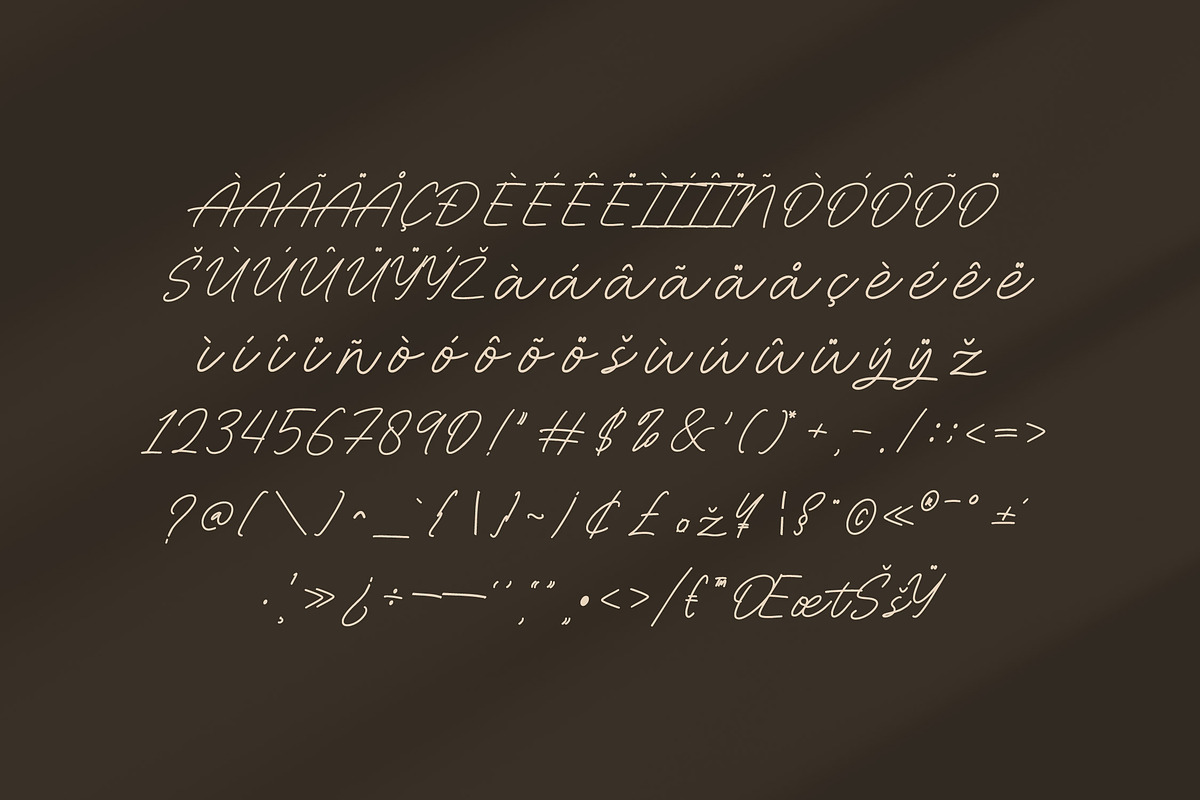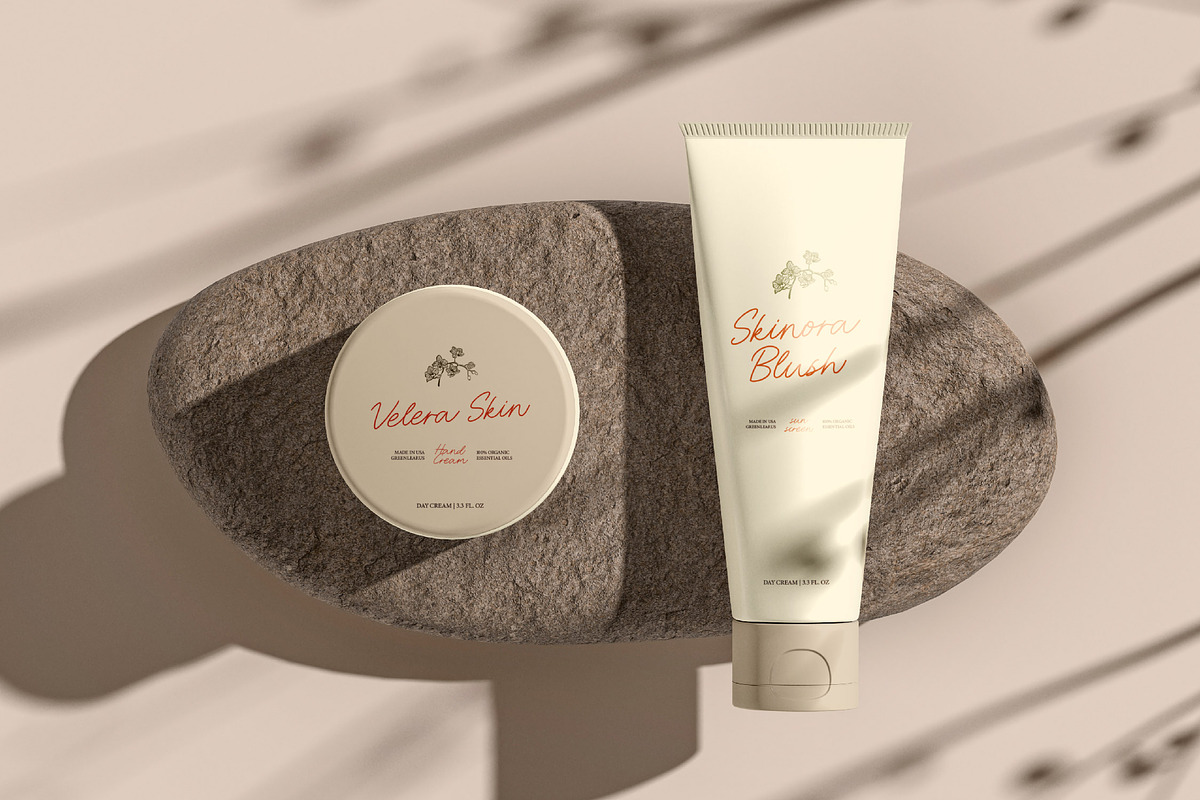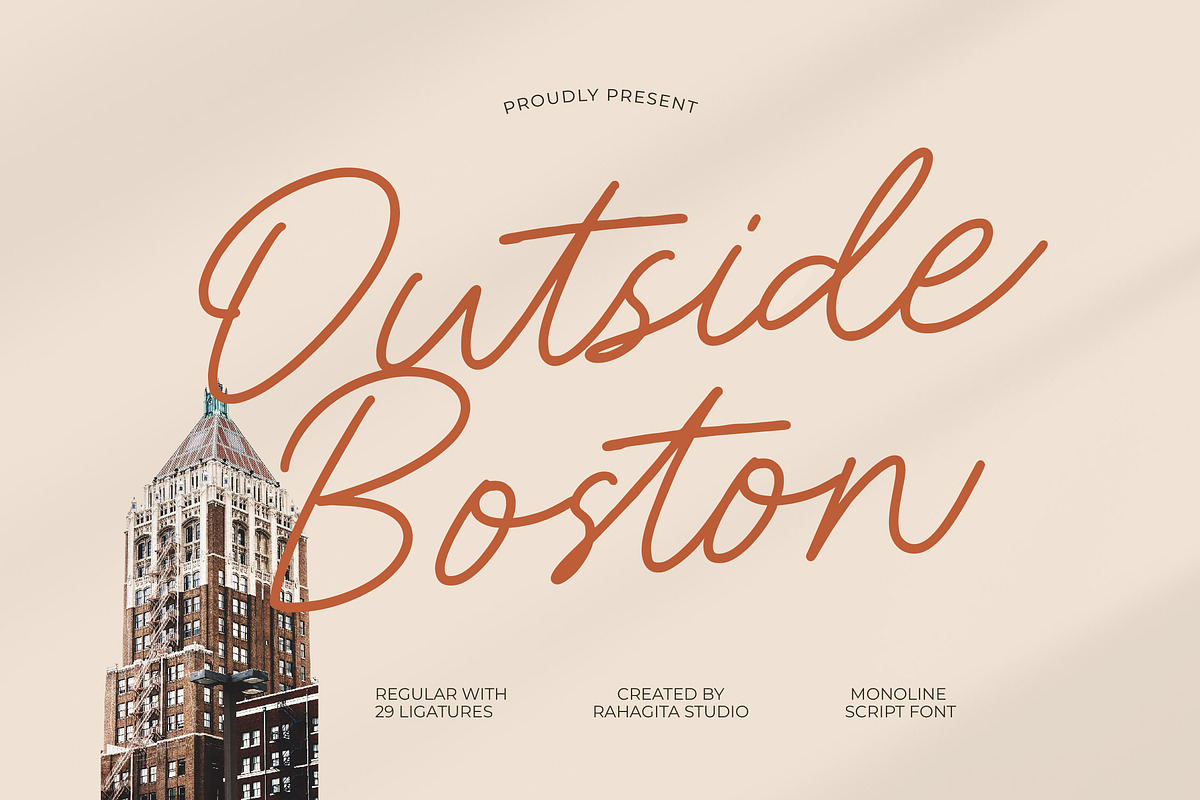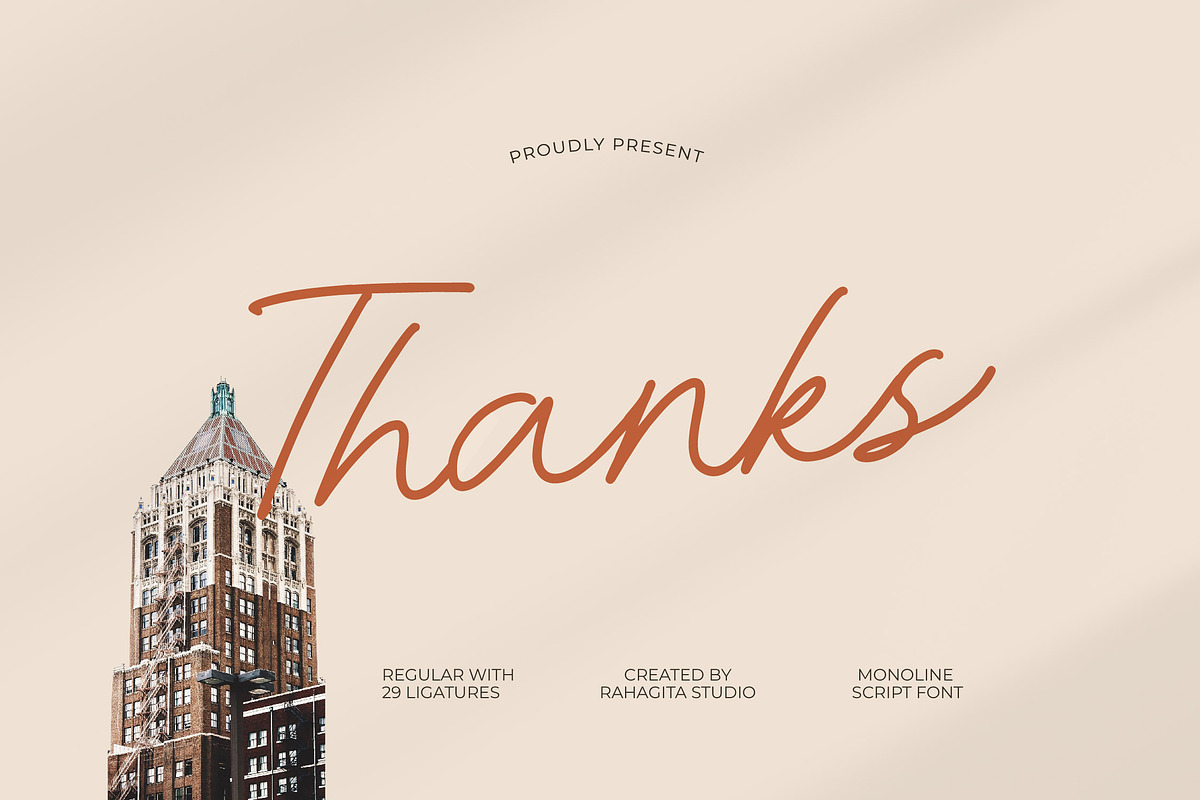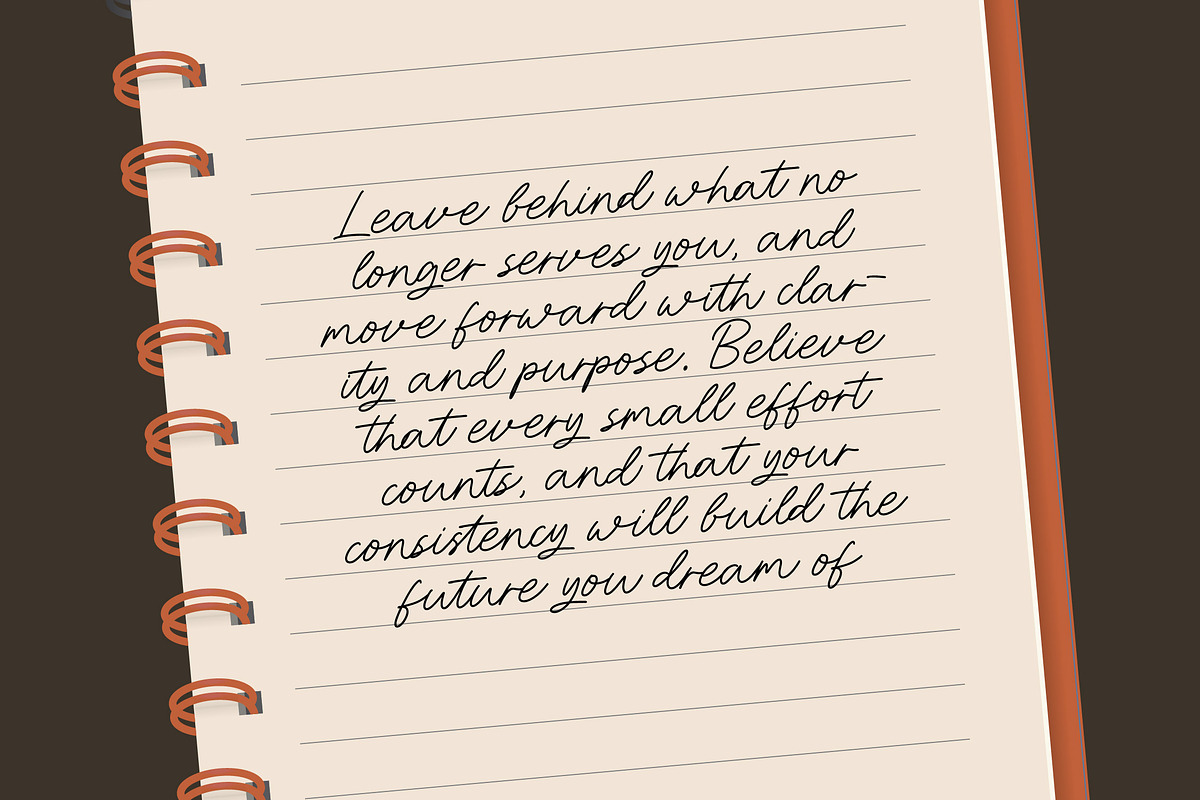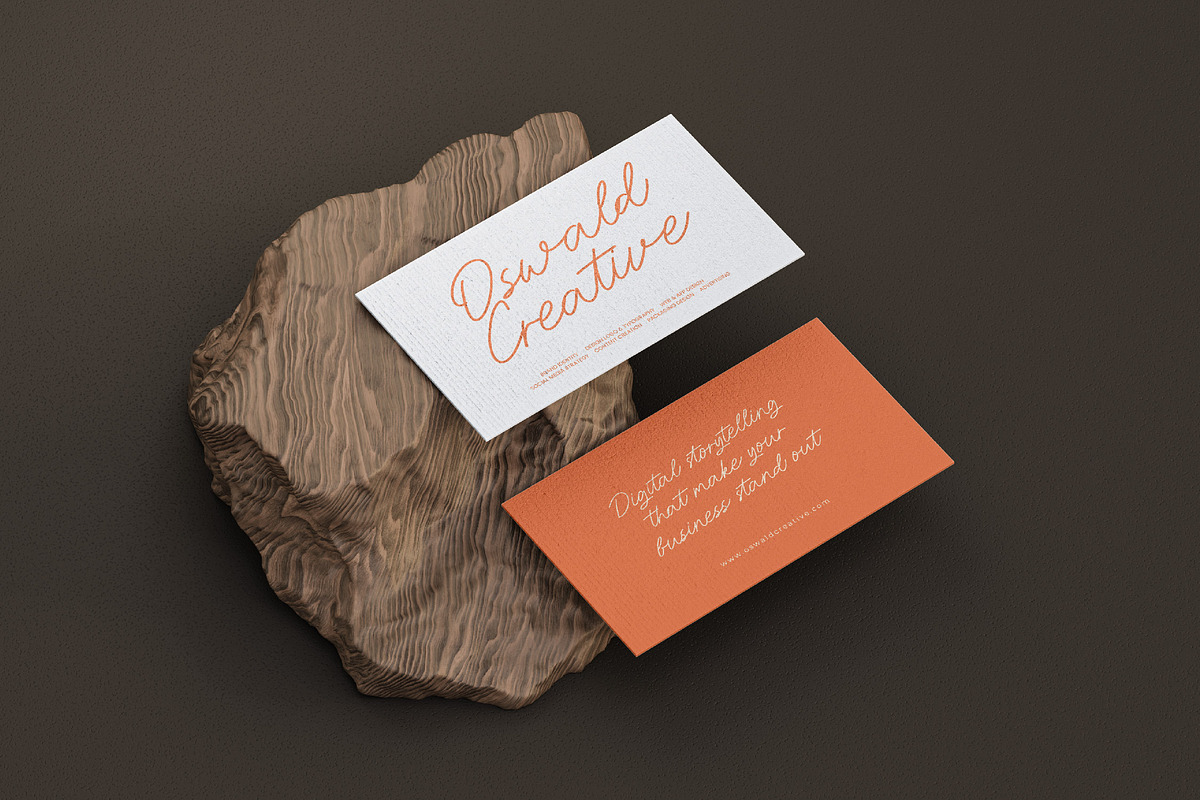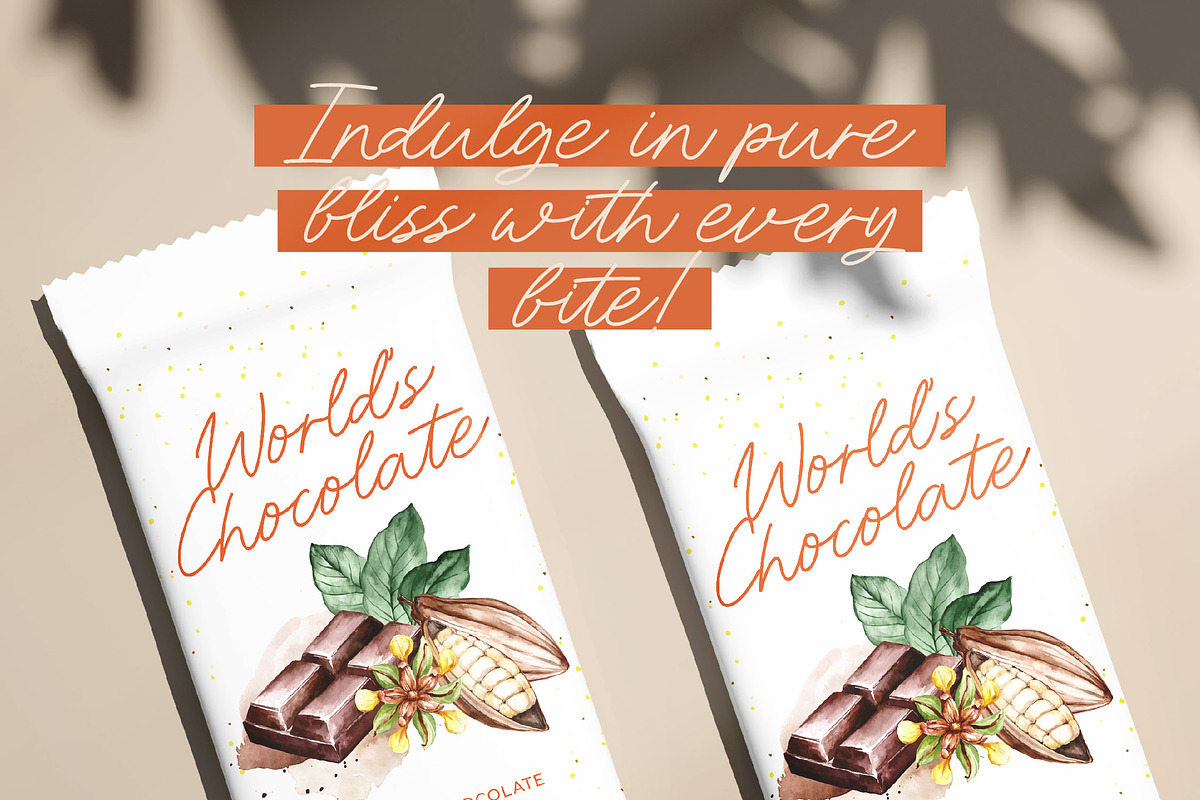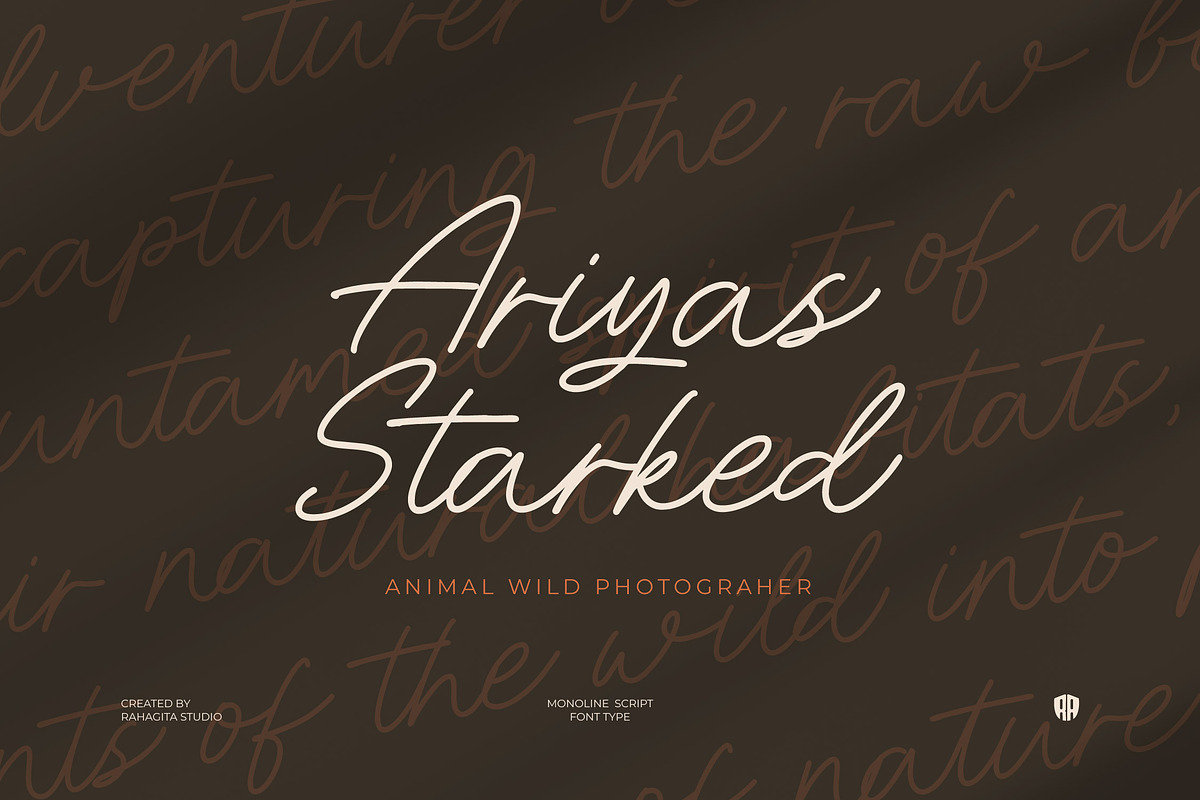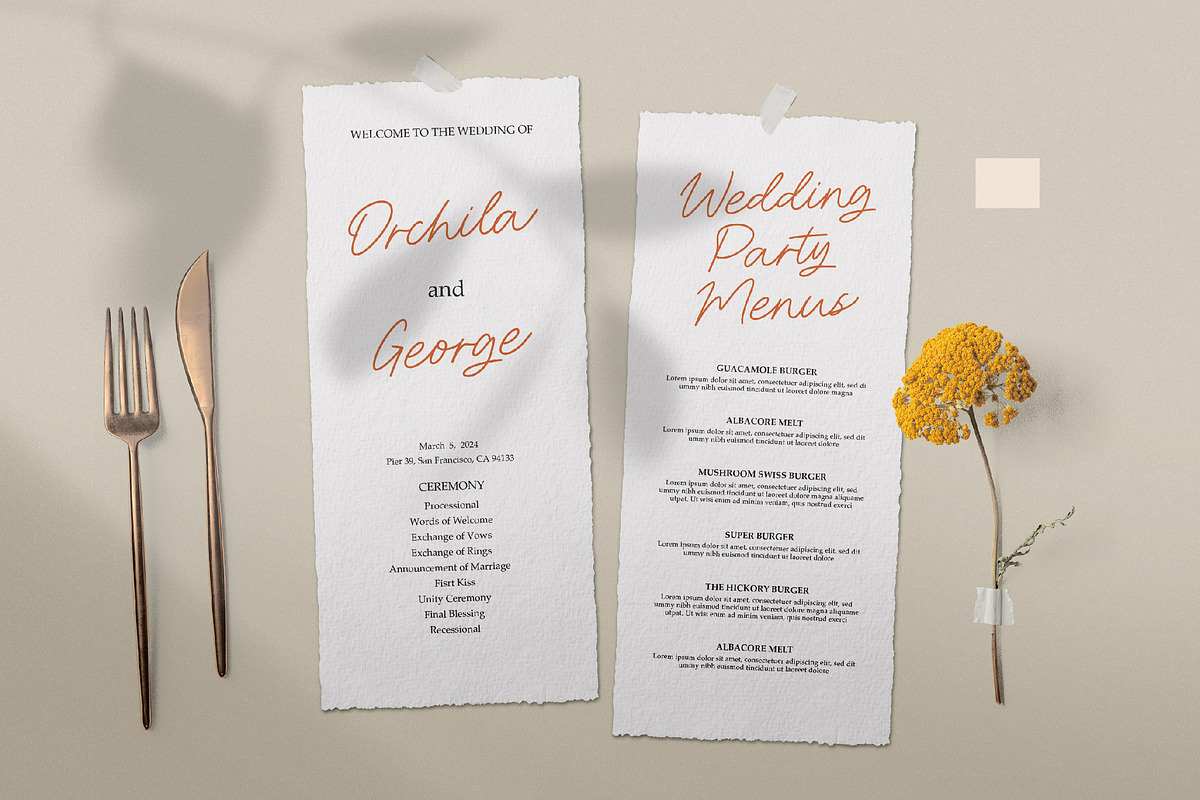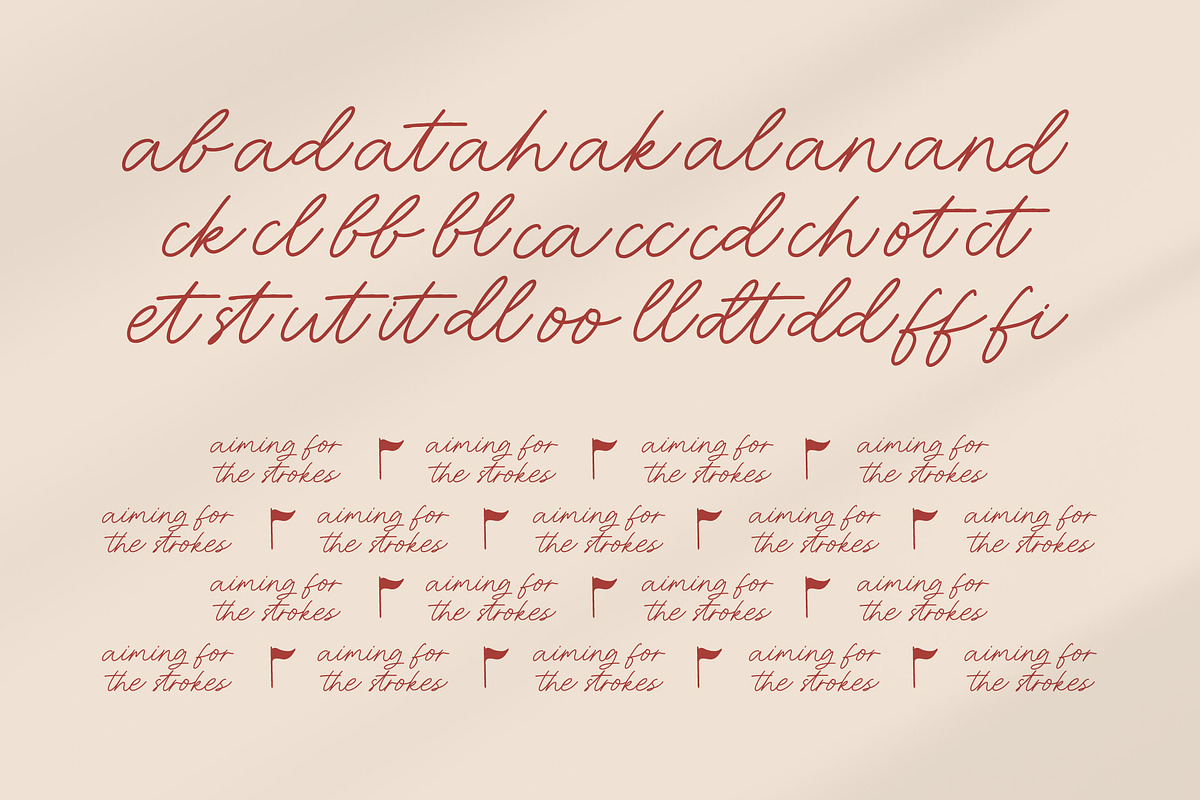
Outside Boston
Introducing Outside Boston, a stylish monoline script font designed by Rahagita Studio. With its smooth curves and elegant flow, Outside Boston captures the essence of effortless handwriting and timeless sophistication. Perfect for branding, packaging, invitations, coffee shop logos, beauty products, and editorial design, this font brings a warm, modern charm to any creative project. Featuring 29 ligatures for natural letter connections and full multilingual support, Outside Boston ensures your typography looks polished and personal in every context.
Let your designs speak with elegance, emotion, and creativity — step Outside Boston.